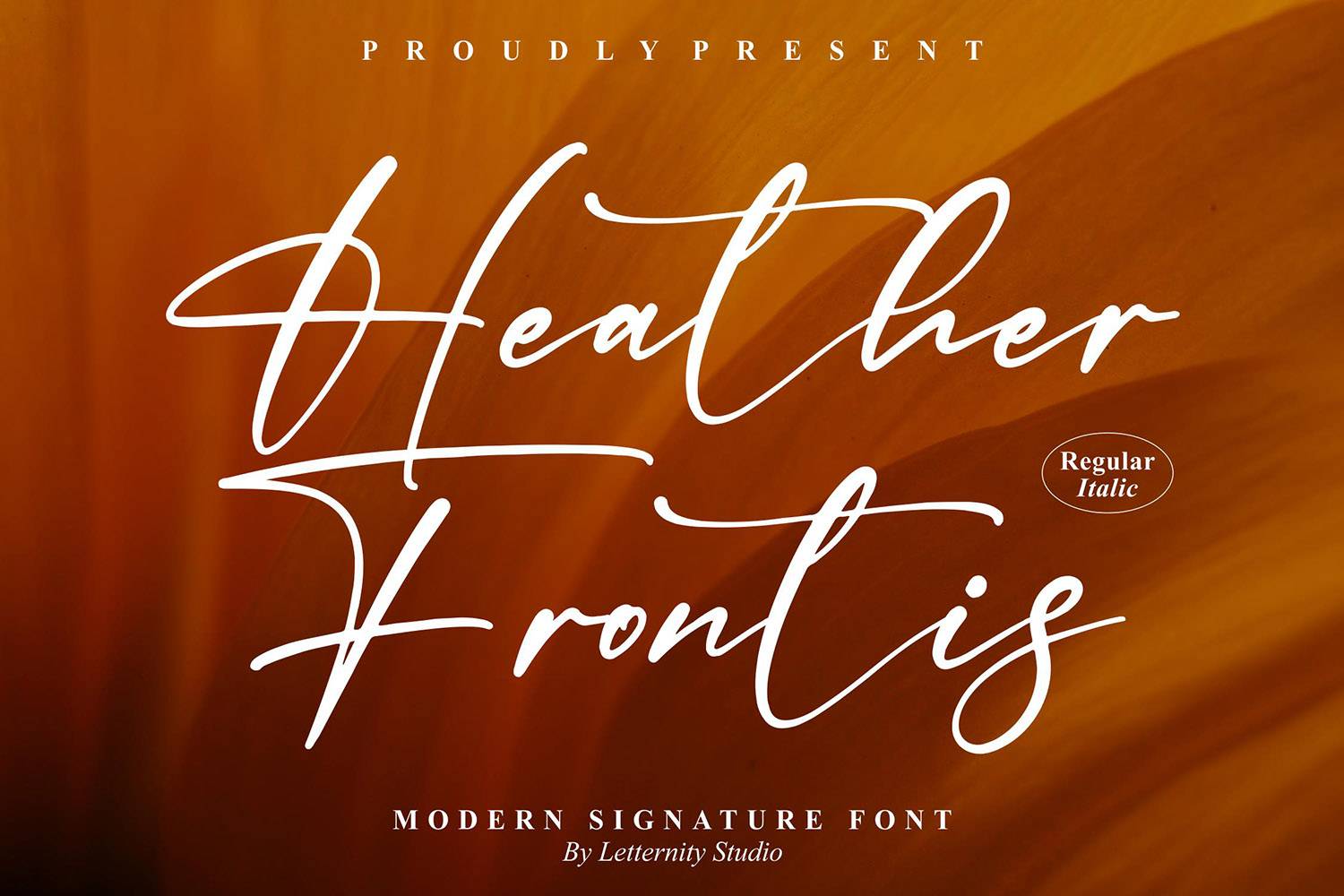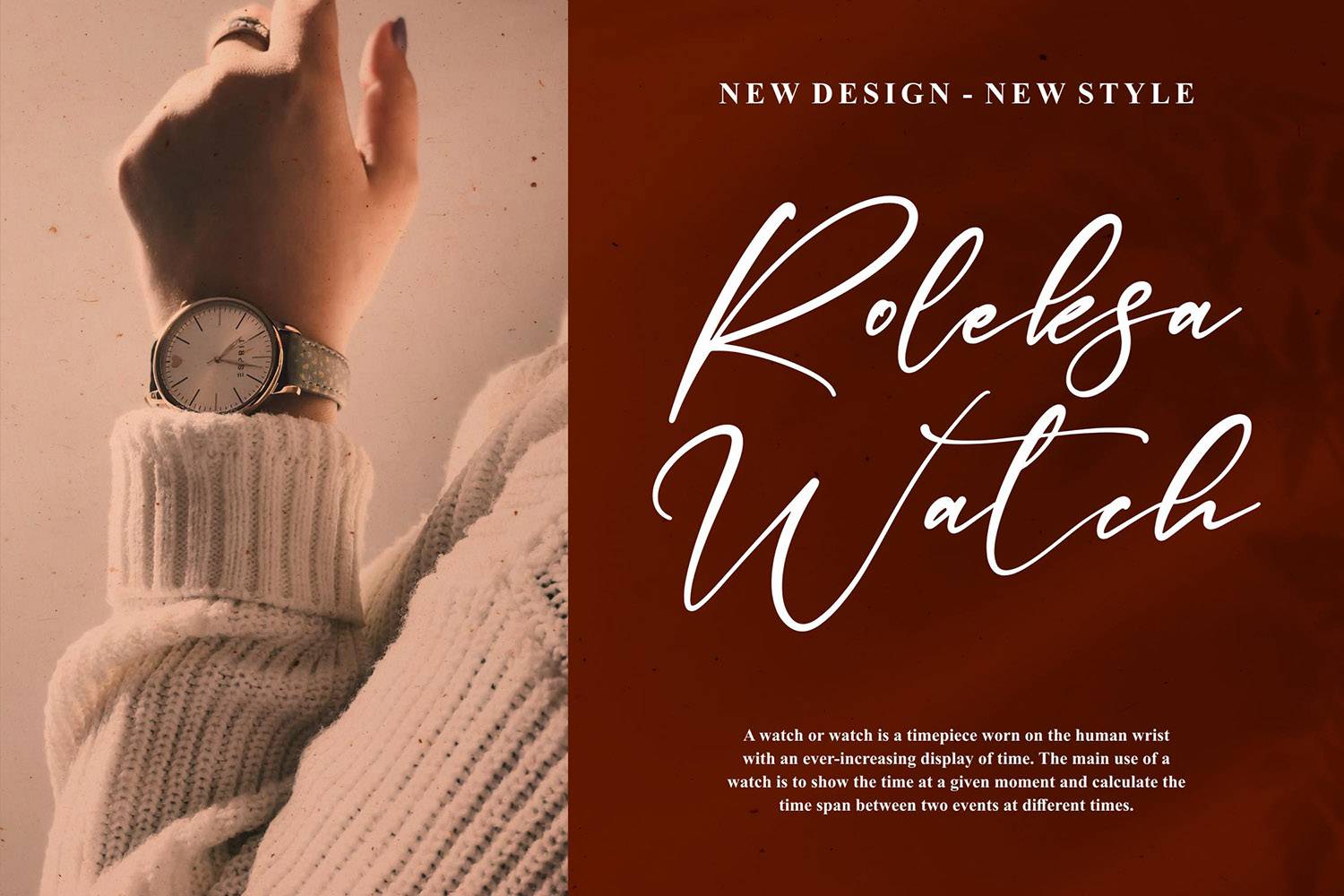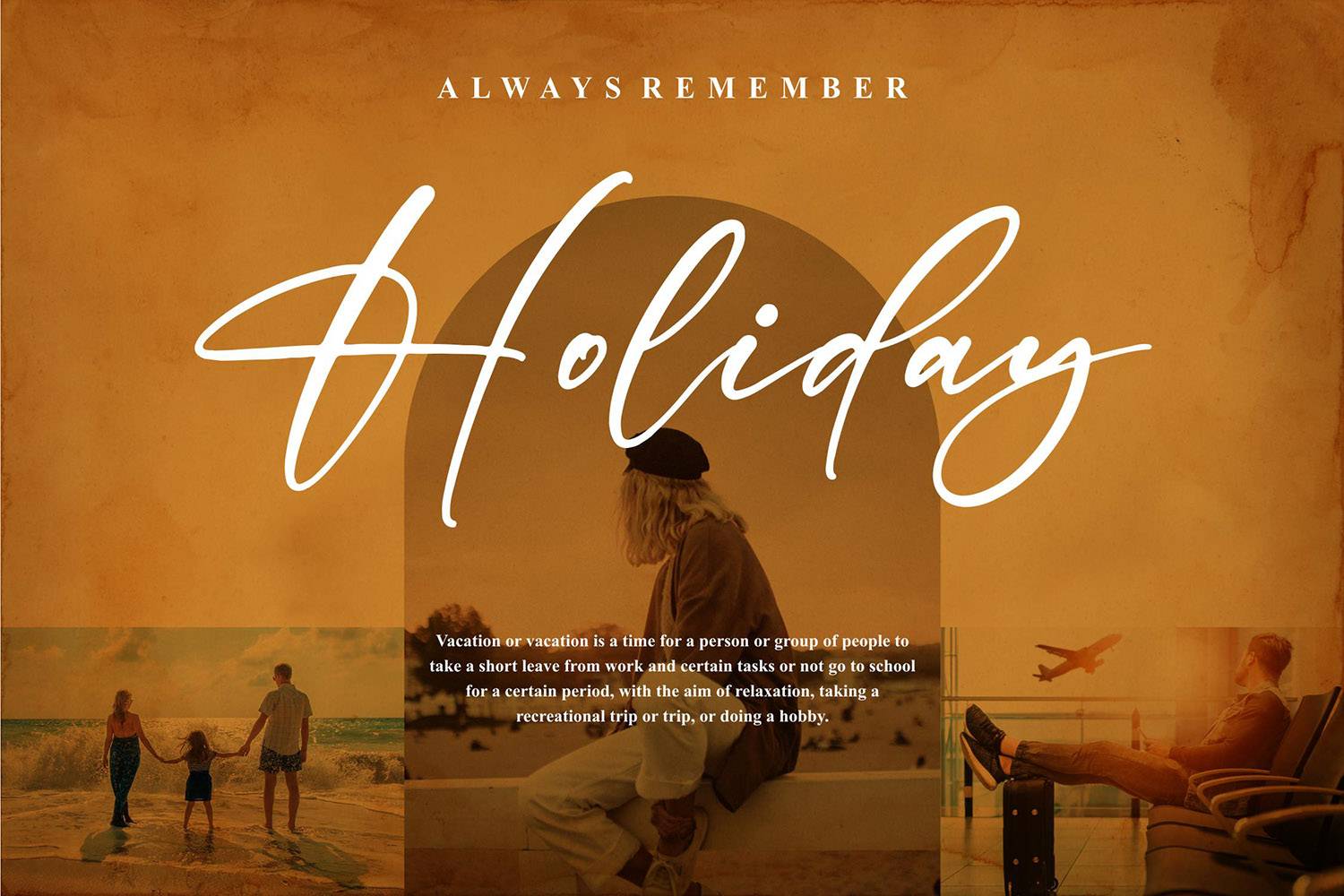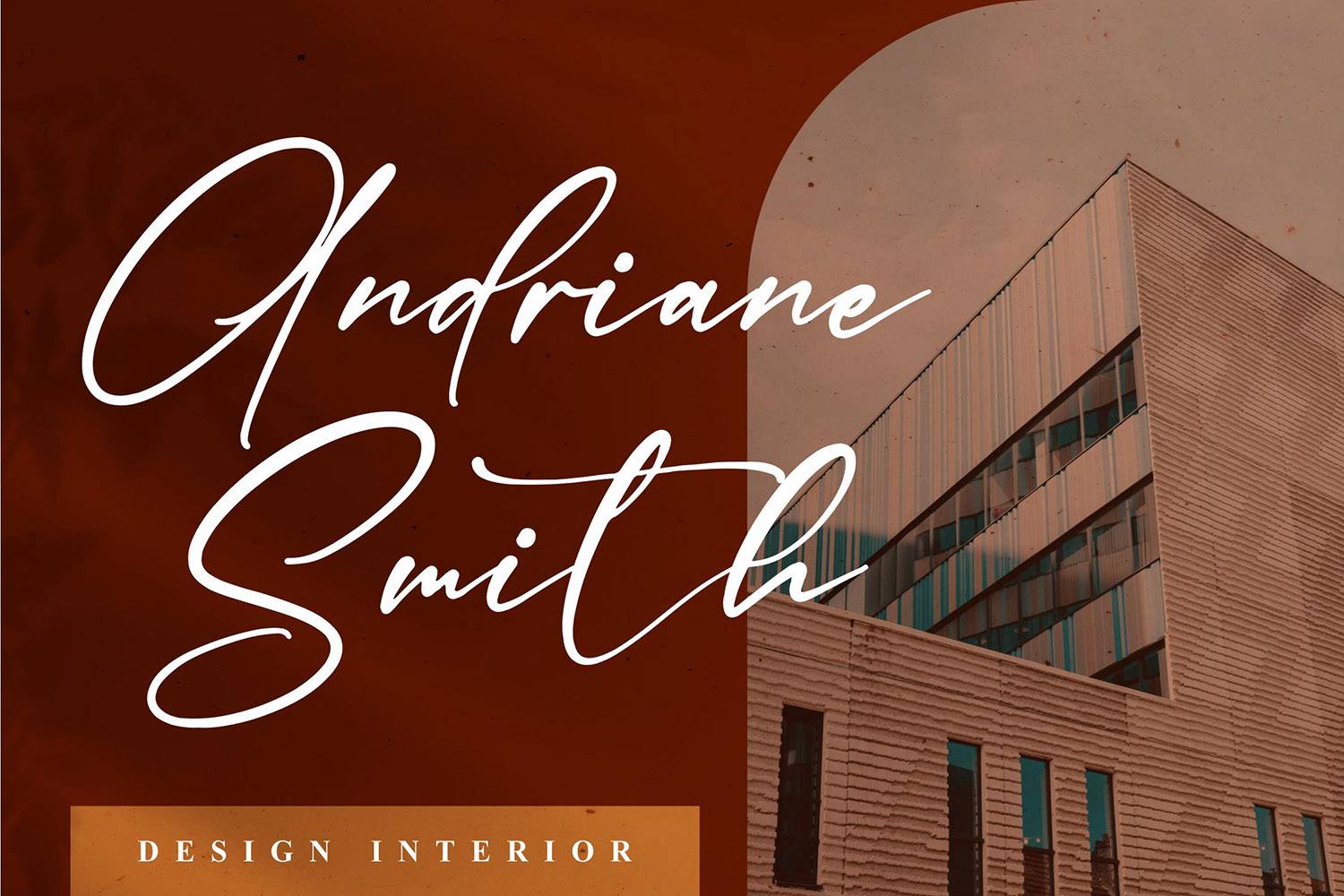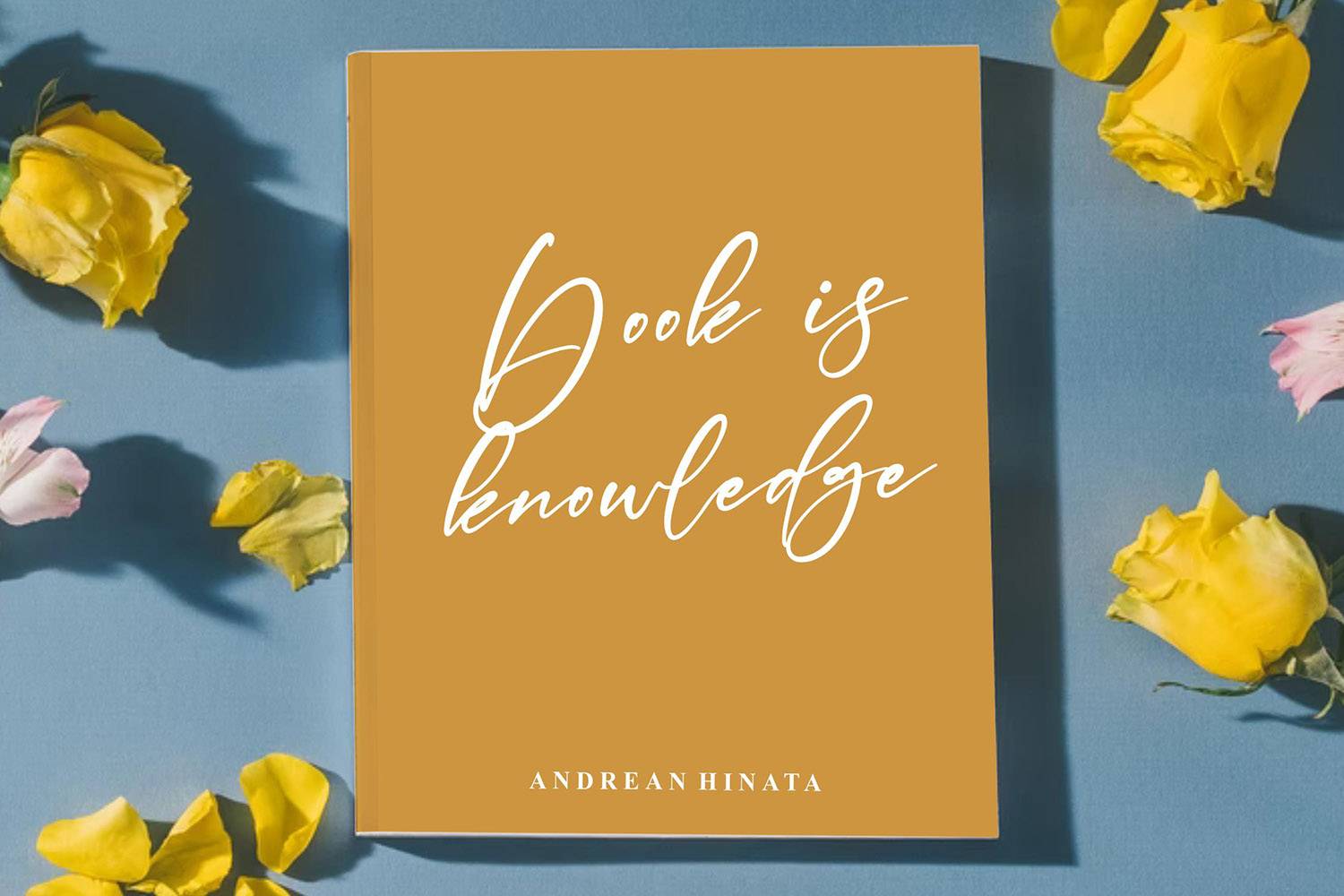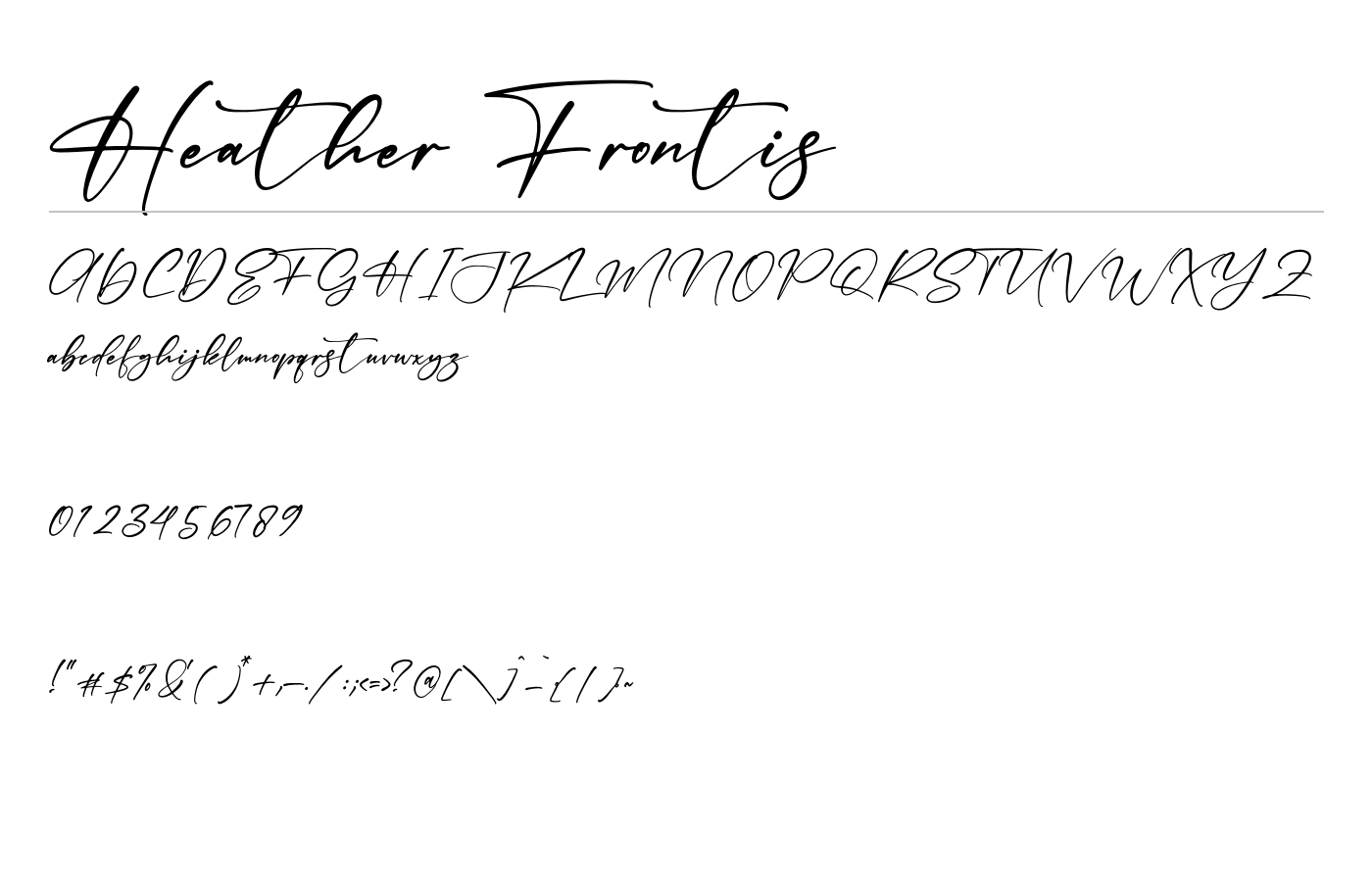
Heather Frontis is an elegant, modern script font characterized by its delicate, flowing strokes and handwritten feel. With its fine, slightly irregular lines and tall, slender letterforms, it exudes a sophisticated yet approachable charm, making it ideal for wedding invitations, fashion branding, and stylish editorial headlines. Its airy, graceful style works best in designs that seek a personal, artistic touch with a refined and contemporary vibe.
Heather Frontis Font
About Heather Frontis Font
| Font family | Heather Frontis Font |